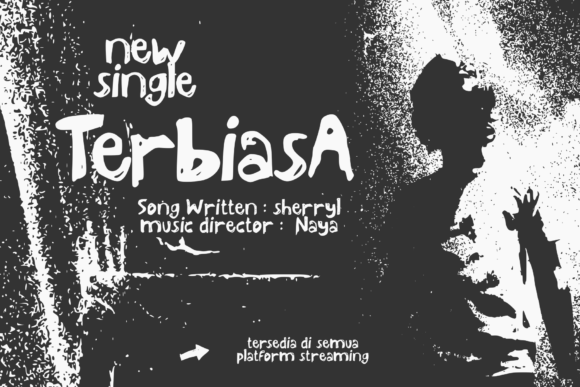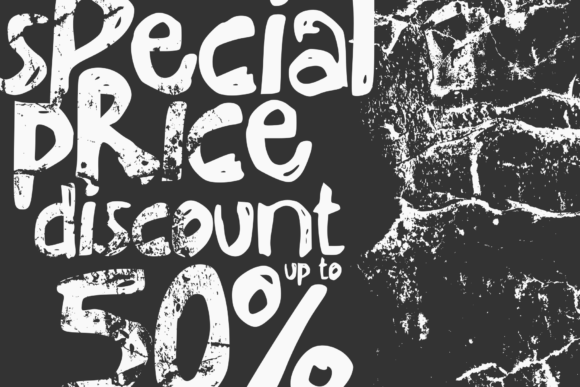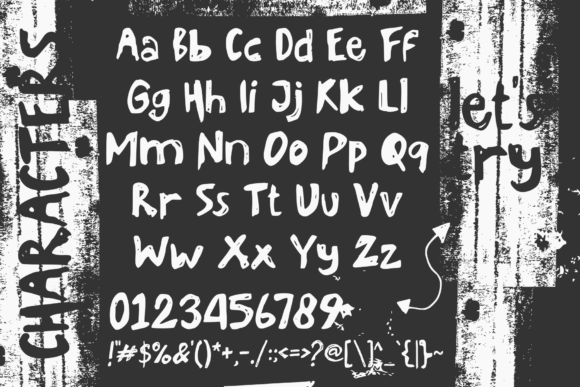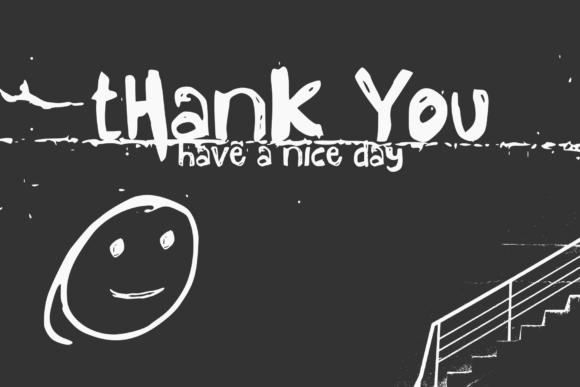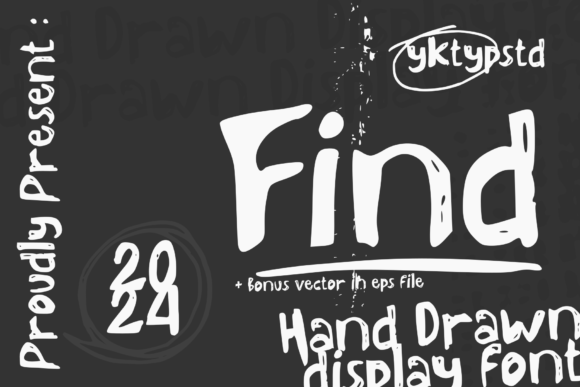
Discover the Unique Charm of ‘Find’ – A Hand-Sketched Font for Creative Minds
Are you tired of using the same old fonts in your designs? Look no further! Introducing ‘Find’, a charming hand-sketched font that’s designed to give your creative endeavors a unique edge. With its unrefined aesthetic, ‘Find’ adds an authentic texture to your projects, complete with splashes of inspired disruption. Whether you’re working on promotional banners, posters, book covers, titles, fashion, streetwear, magazine layouts, or social media ads, ‘Find’ is the perfect choice for designers and crafters looking to make a statement.
The Story Behind ‘Find’
‘Find’ is more than just a font – it’s a design statement. Its hand-sketched style gives it a personal touch that’s hard to replicate with traditional fonts. The unrefined aesthetic of ‘Find’ adds a layer of texture and character to your designs, making them stand out in a crowded digital landscape. With ‘Find’, you can add a touch of personality to your work and make it more relatable to your audience.
What Makes ‘Find’ So Special?
So, what sets ‘Find’ apart from other fonts on the market? Here are just a few reasons why ‘Find’ is a cut above the rest:
- Unique Aesthetic: ‘Find’ has a one-of-a-kind, hand-sketched style that’s sure to turn heads. Its unrefined aesthetic adds a touch of authenticity to your designs and sets them apart from the norm.
- Versatility: ‘Find’ is incredibly versatile and can be used in a variety of design applications, from promotional banners and posters to book covers and social media ads.
- Attention-Grabbing: With ‘Find’, your designs are sure to demand attention. The font’s unique style and texture make it impossible to ignore, ensuring that your message gets seen and heard.
- Bonus Vectors: To take your designs to the next level, ‘Find’ comes with bonus vectors that blend seamlessly with each design, adding another layer of visual intrigue.
‘Find’ is the perfect font for designers and crafters who want to add a touch of personality to their work. Whether you’re working on a personal project or a client’s design brief, ‘Find’ is sure to help you create something truly special. With its unique aesthetic and versatility, ‘Find’ is an excellent choice for:
- Promotional Banners: Add a touch of personality to your promotional banners and make them stand out at events and exhibitions.
- Posters: Create eye-catching posters that grab attention and leave a lasting impression.
- Book Covers: Give your book covers a unique edge with ‘Find’ and make them stand out on bookstore shelves.
- Fashion and Streetwear: Add a touch of personality to your fashion and streetwear designs with ‘Find’ and make them truly unique.
- Magazine Layouts: Use ‘Find’ to add a touch of character to your magazine layouts and make them more engaging.
- Social Media Ads: Make your social media ads stand out with ‘Find’ and grab the attention of your target audience.
Get Ready to Make a Statement with ‘Find’
In a world where design is everything, it’s time to make a statement with ‘Find’. This charming hand-sketched font is the perfect choice for designers and crafters who want to add a touch of personality to their work. With its unique aesthetic, versatility, and attention-grabbing style, ‘Find’ is sure to take your designs to the next level. So why wait? Download ‘Find’ today and discover a whole new world of design possibilities!
In conclusion, ‘Find’ is a game-changing font that’s sure to revolutionize the way you approach design. Its unique style, versatility, and attention-grabbing aesthetic make it the perfect choice for designers and crafters who want to make a statement. Whether you’re working on a personal project or a client’s design brief, ‘Find’ is the perfect tool to help you create something truly special. So don’t wait – get ready to find your unique design voice with ‘Find’!